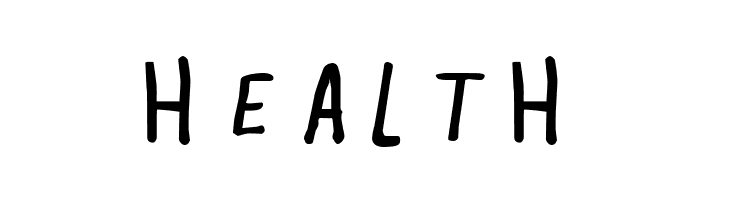
An artistic, cursive font with flowing, decorative elements.
A mosaic-patterned font with characters formed by small dots, offering a textured and artistic look.
An elegant script font with intricate swashes and decorative flourishes.
A bold, italic, 3D font with a modern and dynamic style.
A playful, handwritten font with irregular strokes and a lively feel.
A bold, futuristic font with geometric letterforms and sharp angles.
A bold, geometric font with a modern and structured appearance.
A bold, playful font with thick, rounded strokes and a whimsical style.
An elegant and decorative script font with intricate swirls and flourishes.
An elegant script font with ornate swirls and flourishes, exuding luxury and sophistication.